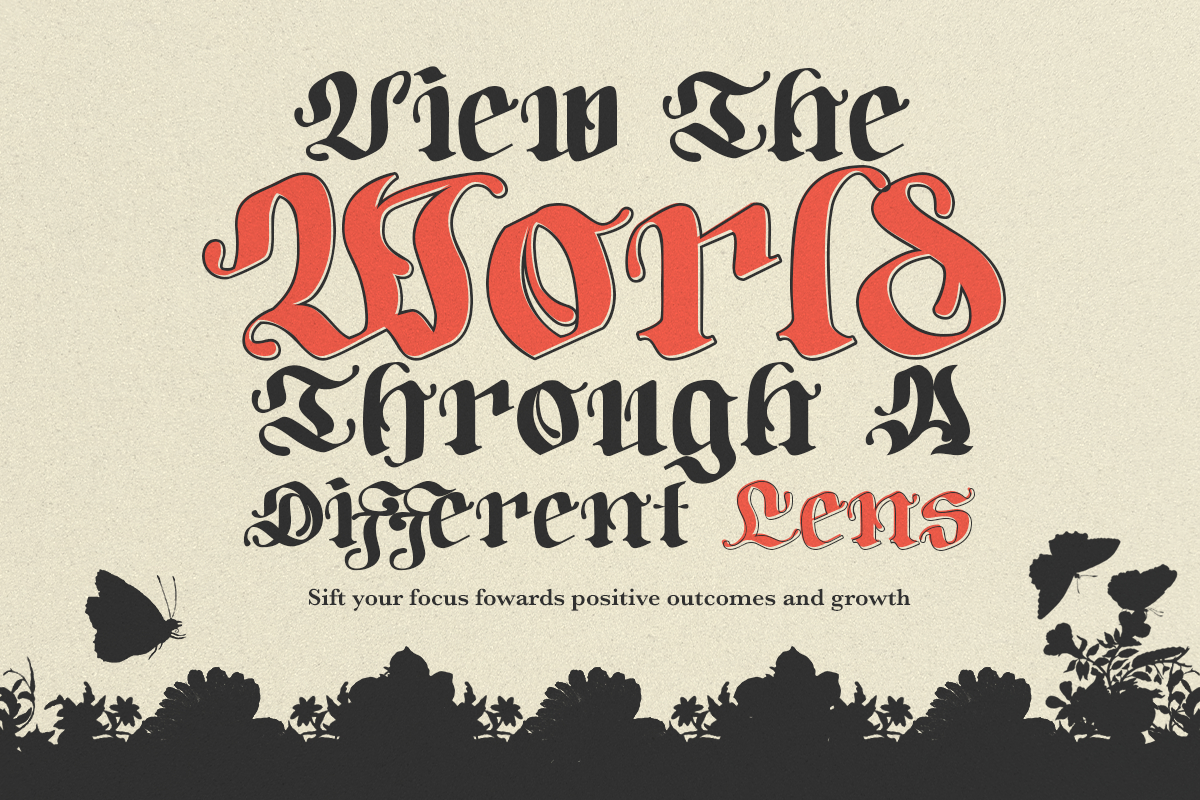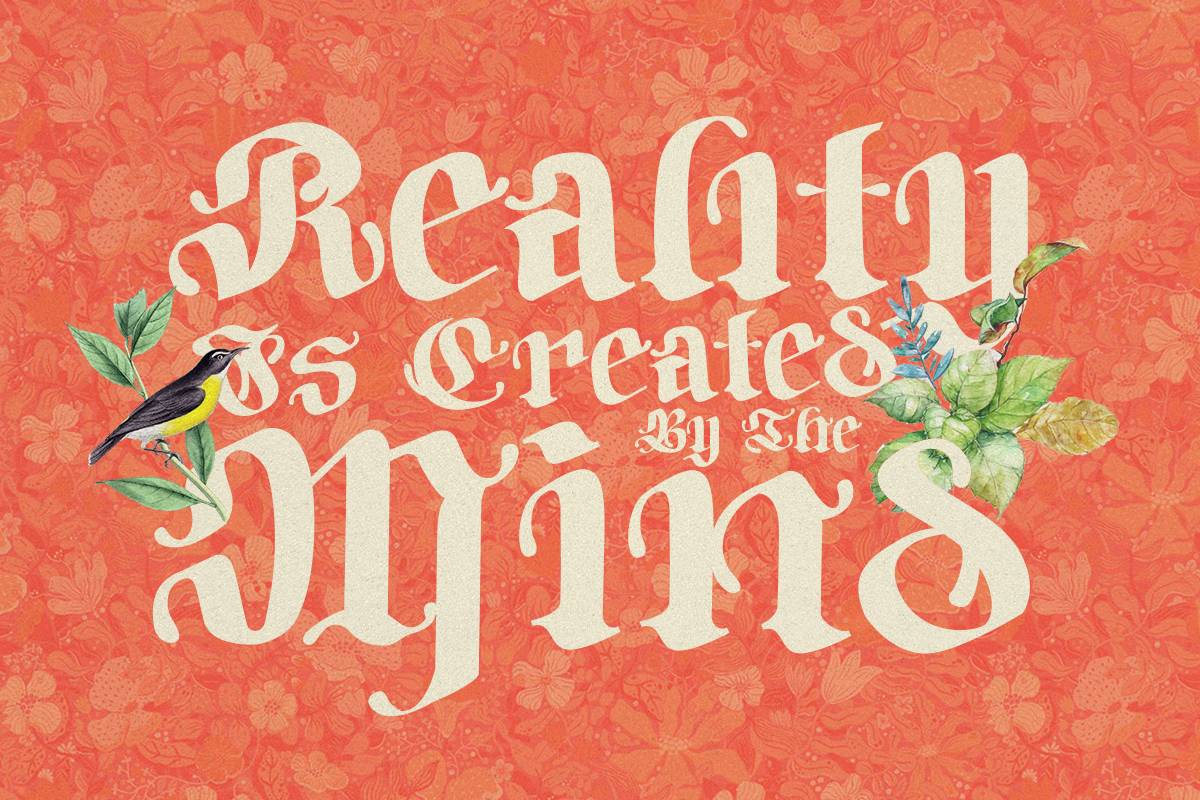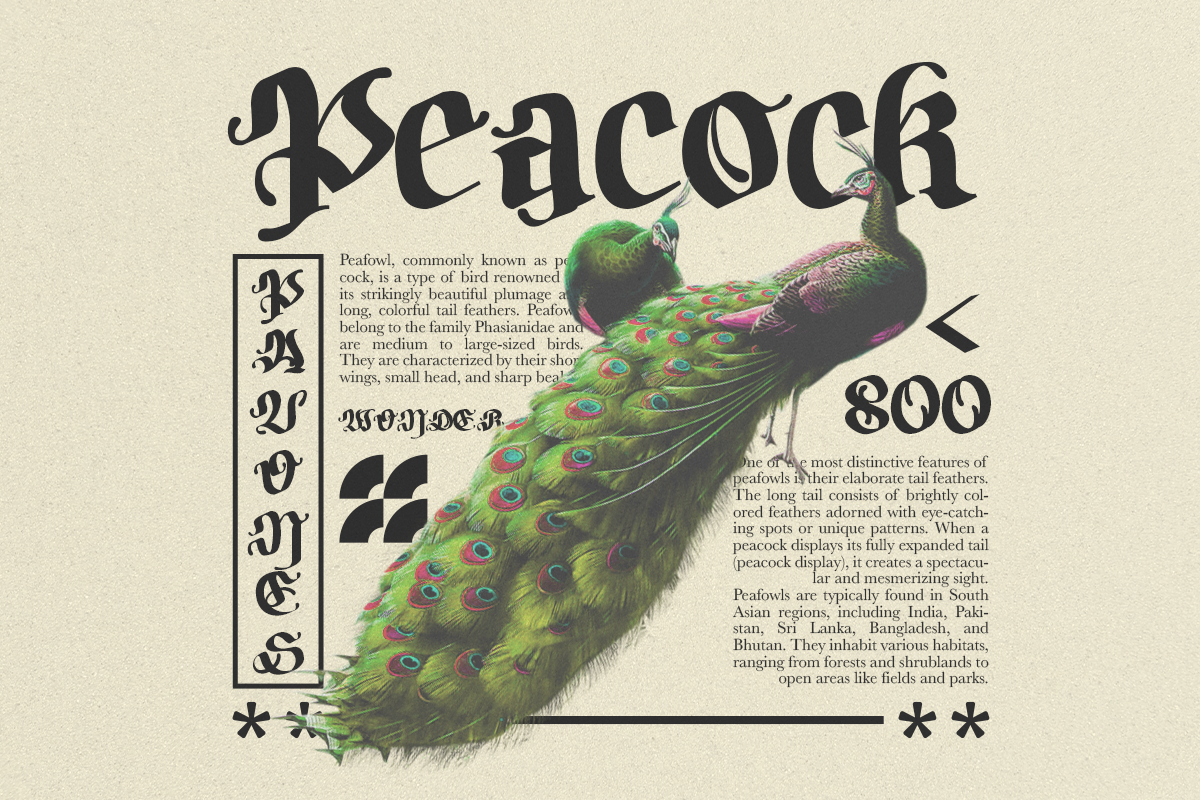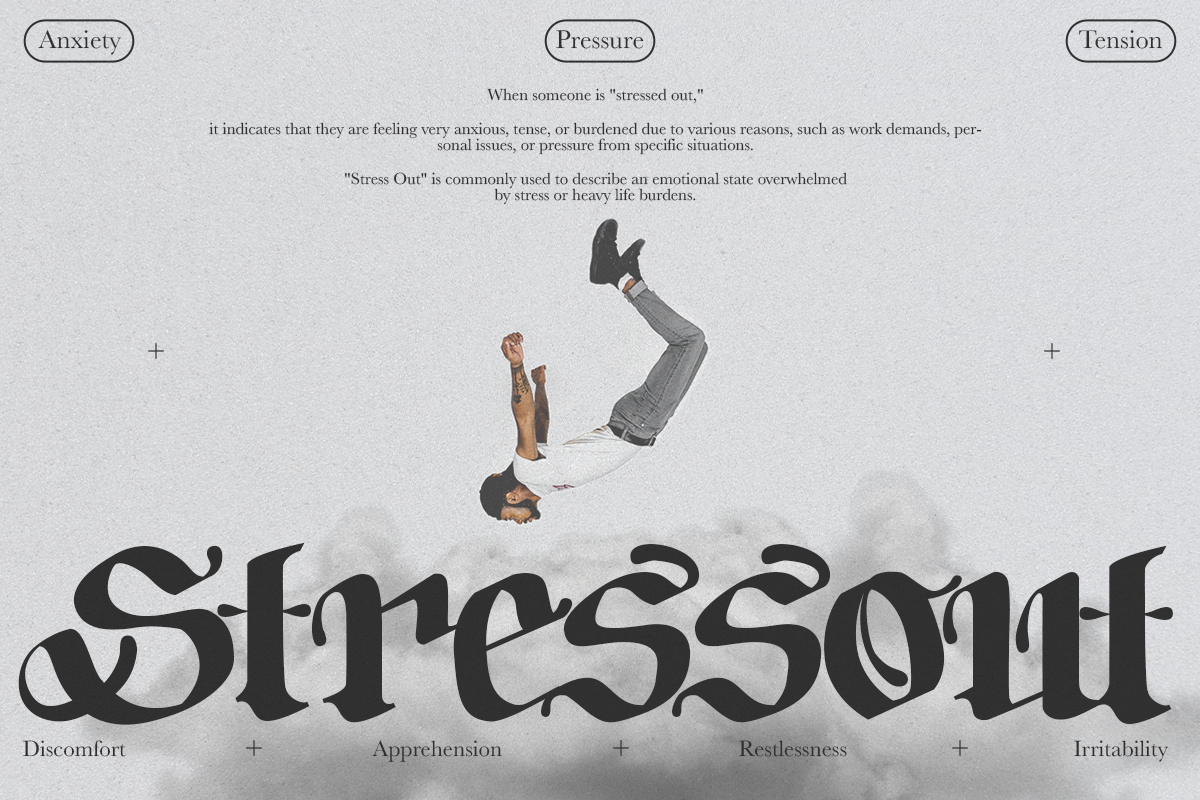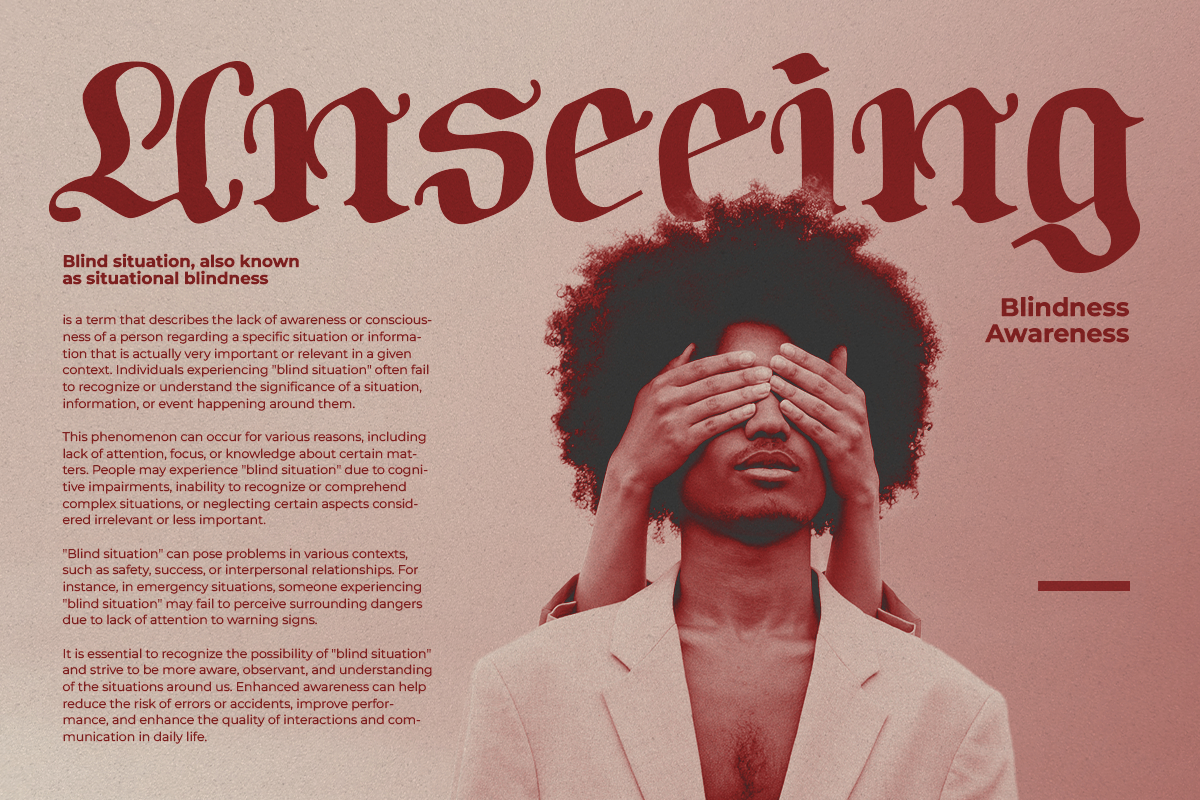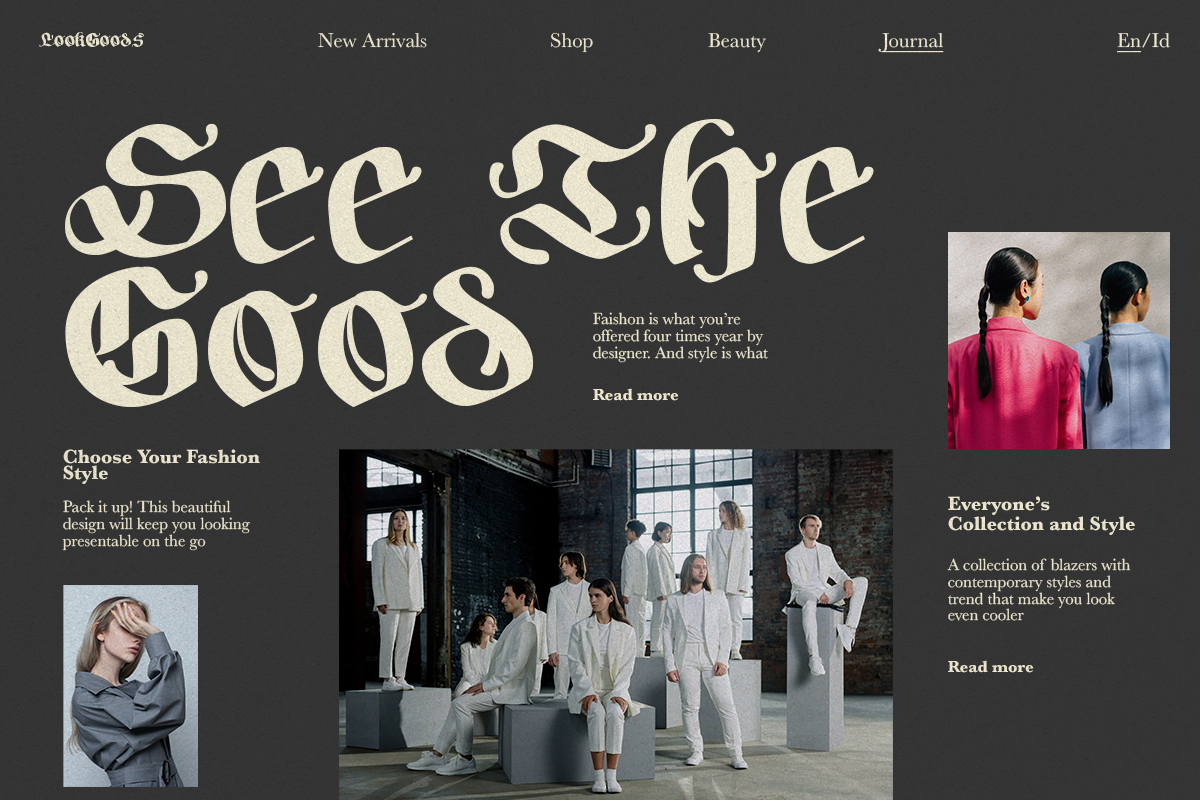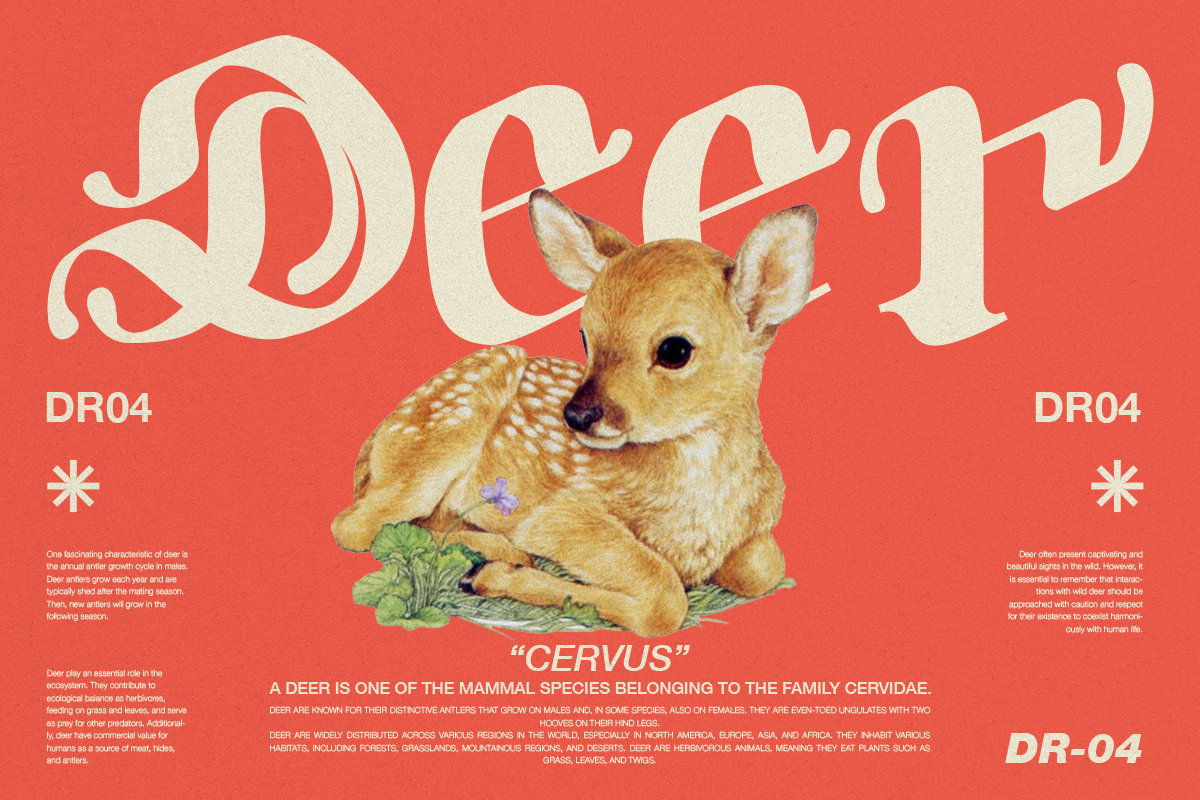
Bodywork Font
About Bodywork Font
Bodywork is a blackletter font with a groovy modern style and flower petal inspired curves. This font is perfect for branding, logo design, cover design, books, magazines, apparel designs, headlines and more.